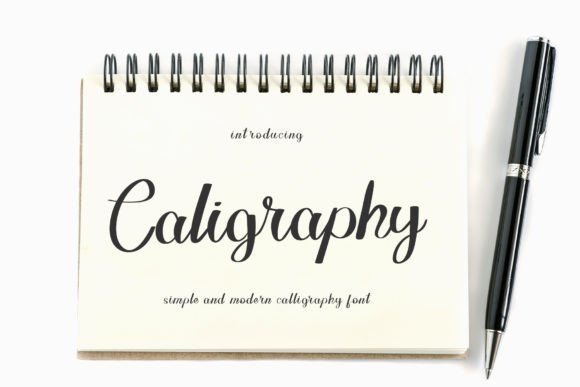
Unleash the Art of Elegant Design with Caligraphy Font
As a designer, have you ever found yourself struggling to convey the perfect message on a special occasion? Maybe it’s a wedding invitation, a birthday greeting, or a luxury brand launch. You want the words to flow like poetry, to transport the reader to a world of elegance and sophistication. That’s where Caligraphy Font comes in – a beautiful script font that brings the art of traditional calligraphy to life.
With its delicate, handwritten strokes, Caligraphy Font adds a touch of refinement to any design. Whether you’re creating invitations, greeting cards, or luxurious branding materials, this font is sure to make your work stand out. Its versatility and timeless charm make it a valuable asset for designers seeking to elevate their craft.
Caligraphy Font Key Features
- Unique Characteristics: Features intricate, hand-crafted lettering with subtle flair and texture, giving it a distinctive, elegant feel
- Font Styles: Available in Regular, Italic, Bold, and Bold Italic styles, with extensive kerning and ligature support
Caligraphy Font Review
At first glance, Caligraphy Font seems like a great choice for any design project. ✨ The elegant and intricate design elements make it perfect for creating a luxurious and sophisticated atmosphere. The font is highly customizable, allowing you to adjust the letter spacing, size, and color to fit your specific needs. ✨ The high-quality vector format makes it scalable to any size without losing its clarity.
However, there are a few limitations to consider. ⚠️ The font is not suitable for small text sizes, as the intricate details can become too small to read. Additionally, the font’s complexity can make it difficult to pair with other fonts, which may limit your design options. ⚠️
- ✨ Highly customizable
- ✨ Elegant and sophisticated design elements
- ✨ High-quality vector format
- ⚠️ Not suitable for small text sizes
- ⚠️ Can be difficult to pair with other fonts
Overall, Caligraphy Font is a great choice for designers looking to create a luxurious and sophisticated atmosphere. While it may have some limitations, the font’s high level of customization and quality make it a valuable addition to any design project.
For getting the most out of calligraphy font, use it for headings and titles to add a touch of elegance and sophistication. Common use cases include wedding invitations, wedding stationery, and other special occasion graphics. Experiment with different font combinations and color schemes to create unique and eye-catching designs.